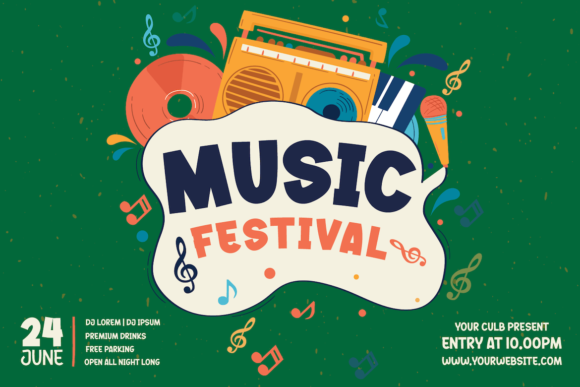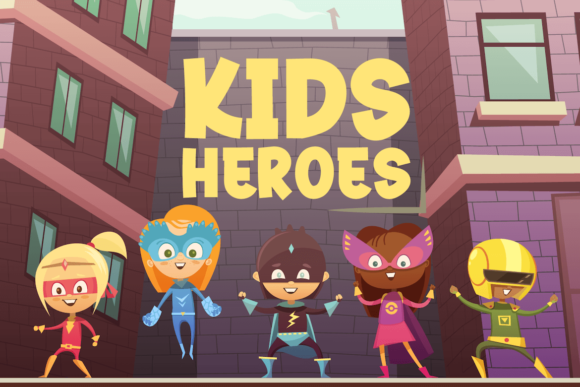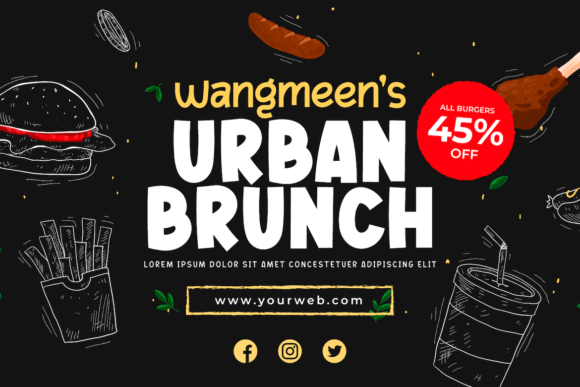
Introduction to Rufing Font
Rufing is a playful and cartoon like display font.
It embodies joy authenticity and is the perfect choice for any children activity or school project .
Why Choose Rufing Font?